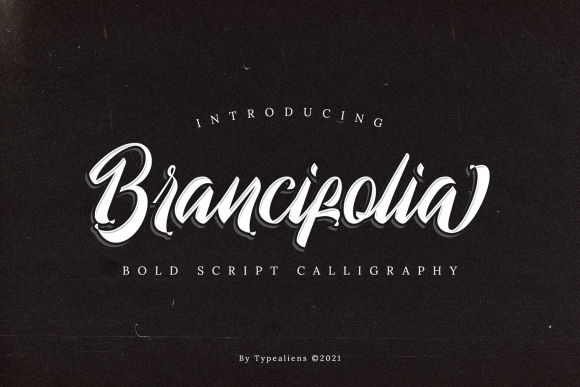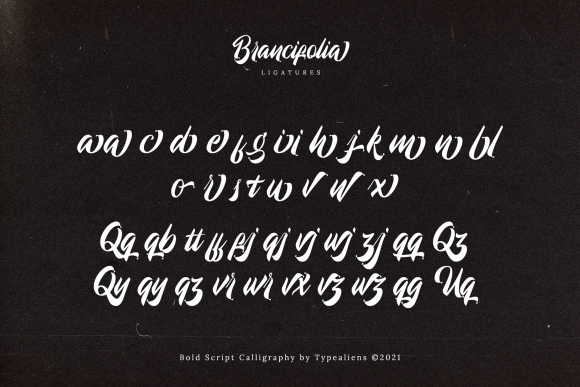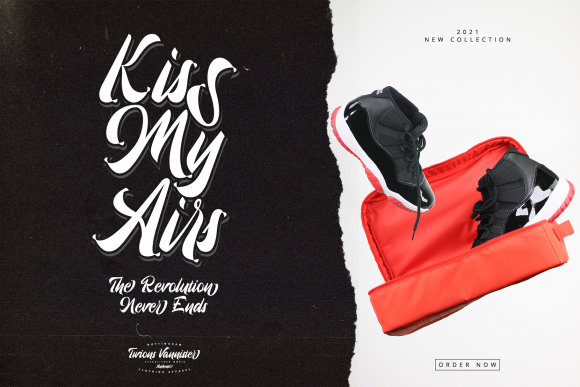
About Brancifolia Font
Brancifolia is a bold script font, with a unique feature at the end of each stroke. This font reads as strong, confident, and dynamic and can add tons of nostalgic character to your designs.